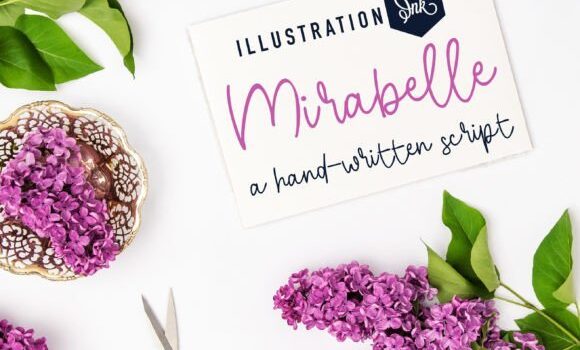
mirabelle
Mirabelle Font - Featured Image
Mirabelle Font – Free Download Introduction to Mirabelle Font This hand-written print is lightweight cursive with a bouncy baseline. 📸 Preview Gallery 6 images 📌 Product Name Mirabelle Font 👤 Author Illustration Ink 📂 Category Explore ⬇️ Download Mirabelle Font